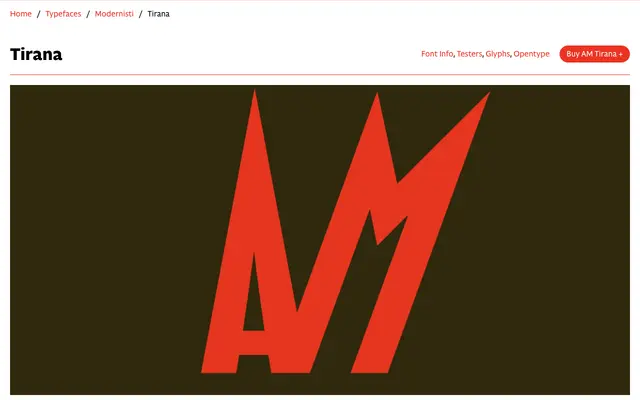
AM Tirana
CAST · Leo Philp · 2024
A digital revival of an Italian wood type from c.1938-41, drawn by Leo Philp with lenticular counters, sharp spurs and exceedingly open apertures.
Based on Tirana, a condensed geometric wood type produced by Xilografia Italiana of Badia Polesine, AM Tirana preserves the source material's low contrast, large x-height and characteristic open C and S alongside pointed A and N vertices. The design is set apart by its treatment of joints and spurs, which close at sharp angles or are squared off, and by its lemon-slice and lenticular counters. OpenType features reflect the original type's conventions, including raised dashes and compact parentheses for all-caps setting, plus stylistic alternates for the C, G, 6, 9 and ampersand.
Condensed geometric sans derived from a 1938-41 Italian wood type, characterised by low contrast, large x-height, open apertures and sharp geometric detailing including lenticular counters and squared or angled spurs.